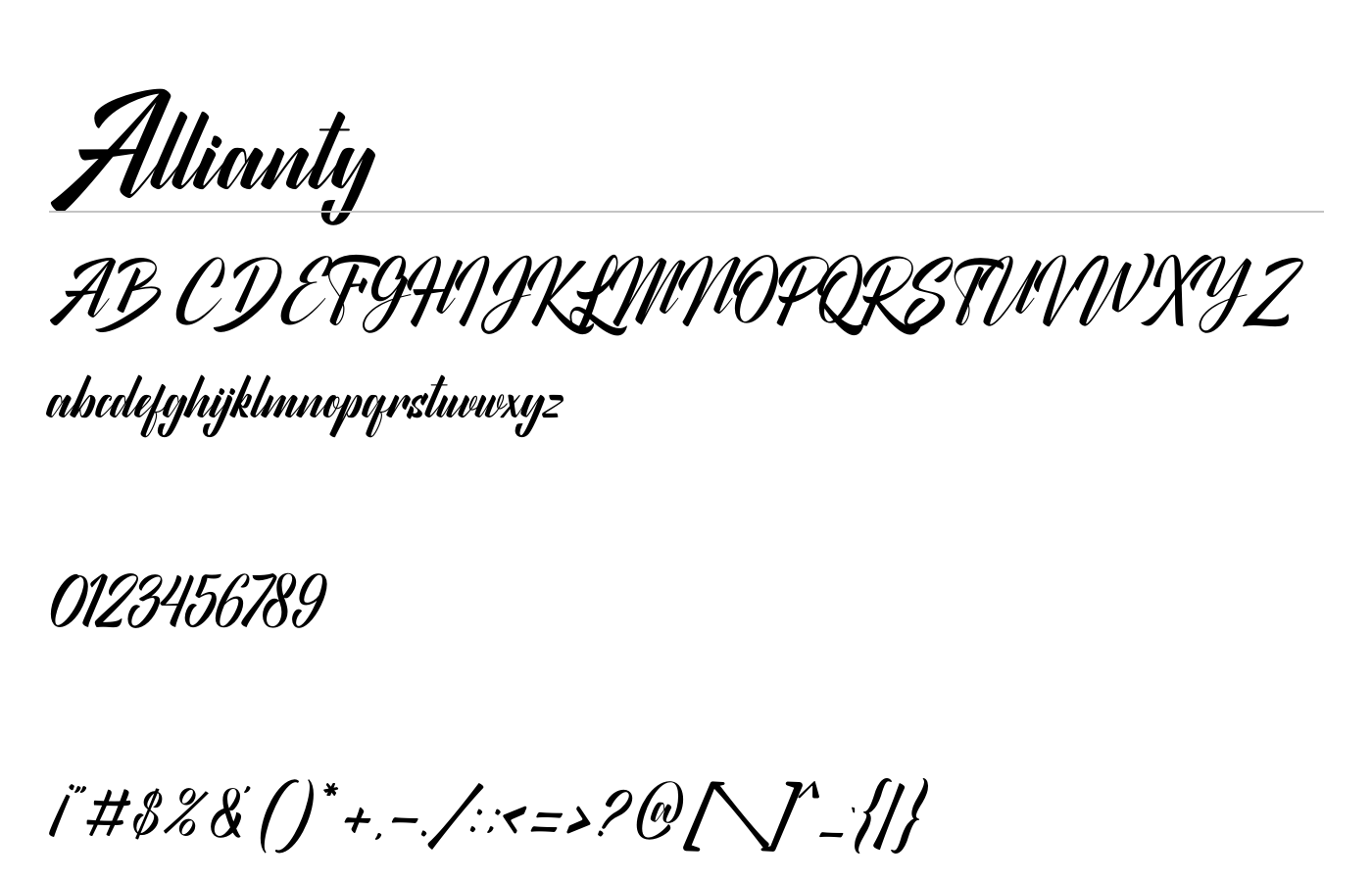
Allianty is a stylish script font featuring smooth, flowing strokes with a moderate contrast that gives it an elegant yet approachable feel. Its slightly condensed letterforms and cursive connection make it ideal for fashion, branding, and elegant invitations, adding a personal and sophisticated touch. This font shines in headlines and logos where a refined, handwritten aesthetic is desired.
Allianty Font
About Allianty Font
| Designer | Hamber Perdiansyah |